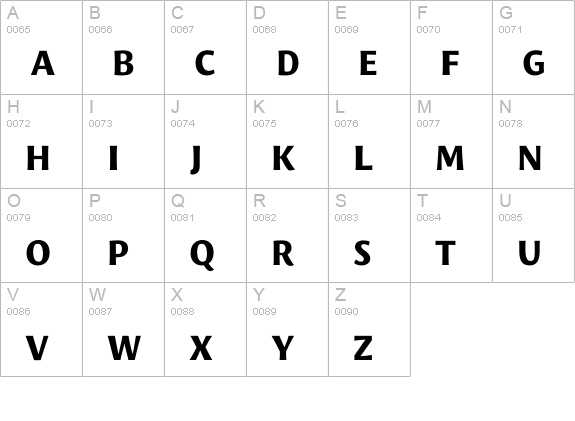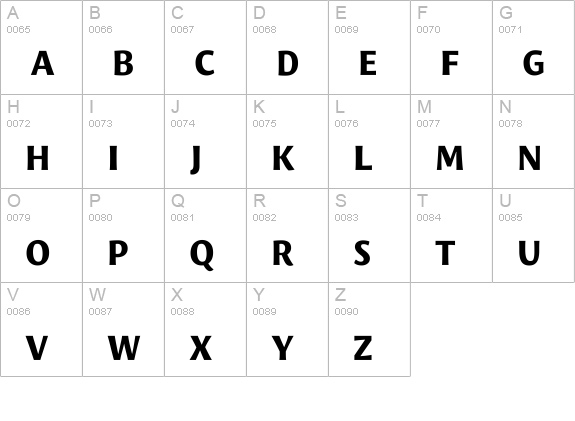
Leksa Sans Bold is a strong, high-contrast variant in the Leksa typeface family \xE2\x80\x94 well suited to headlines, attention-grabbing titles, and strong calls-to-action.
Leksa Sans Bold font is a modern and versatile typeface that combines sleek lines with bold characters to make a strong visual impact. Perfect for headlines, titles, and branding, this font exudes confidence and professionalism. Its clean and minimalist design ensures readability, making it suitable for a wide range of design projects. And the best part? Leksa Sans Bold font is available for free download at FontsMarket.com. Whether you're a graphic designer looking to add a powerful element to your projects or a business owner in need of a strong visual identity, this font is sure to make a statement. Download Leksa Sans Bold today and take your designs to the next level!